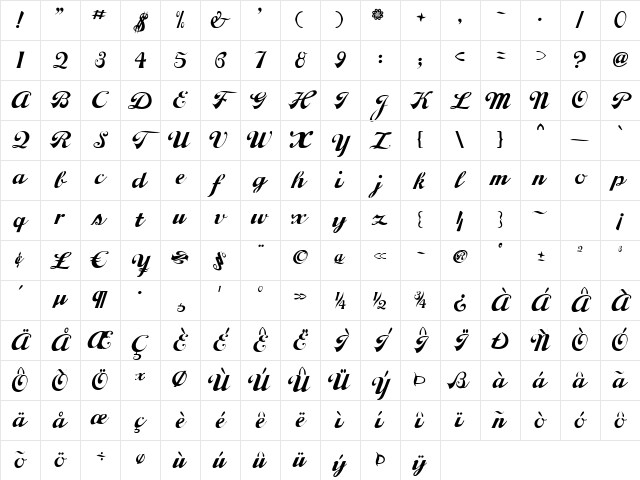
LiciousScript Regular Free Font
LiciousScript Regular
Design Context for LiciousScript
LiciousScript flows with the natural rhythm of handwritten lettering, making it ideal for designs that call for warmth and personal expression.
Font Pairing: Combine LiciousScript with a simple geometric sans for maximum contrast - the tension between flowing curves and clean structure is a classic typographic pairing.
Pro Tip: Use LiciousScript for short runs of text - names, titles, or taglines. Extended body copy in script faces tires the eye quickly.